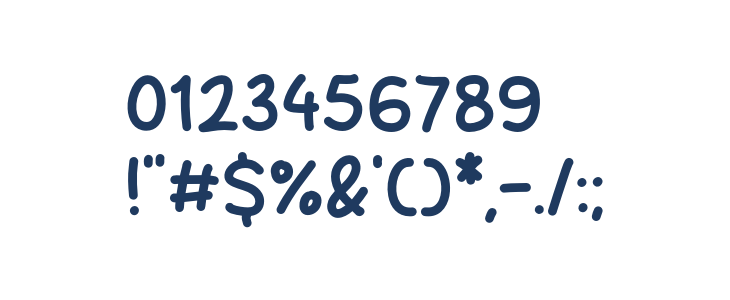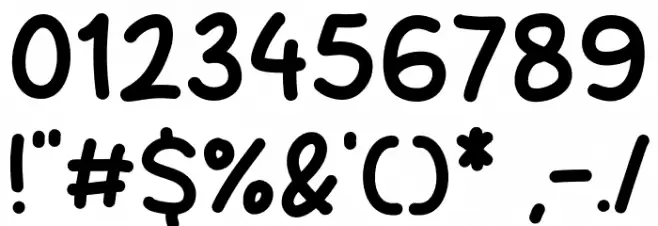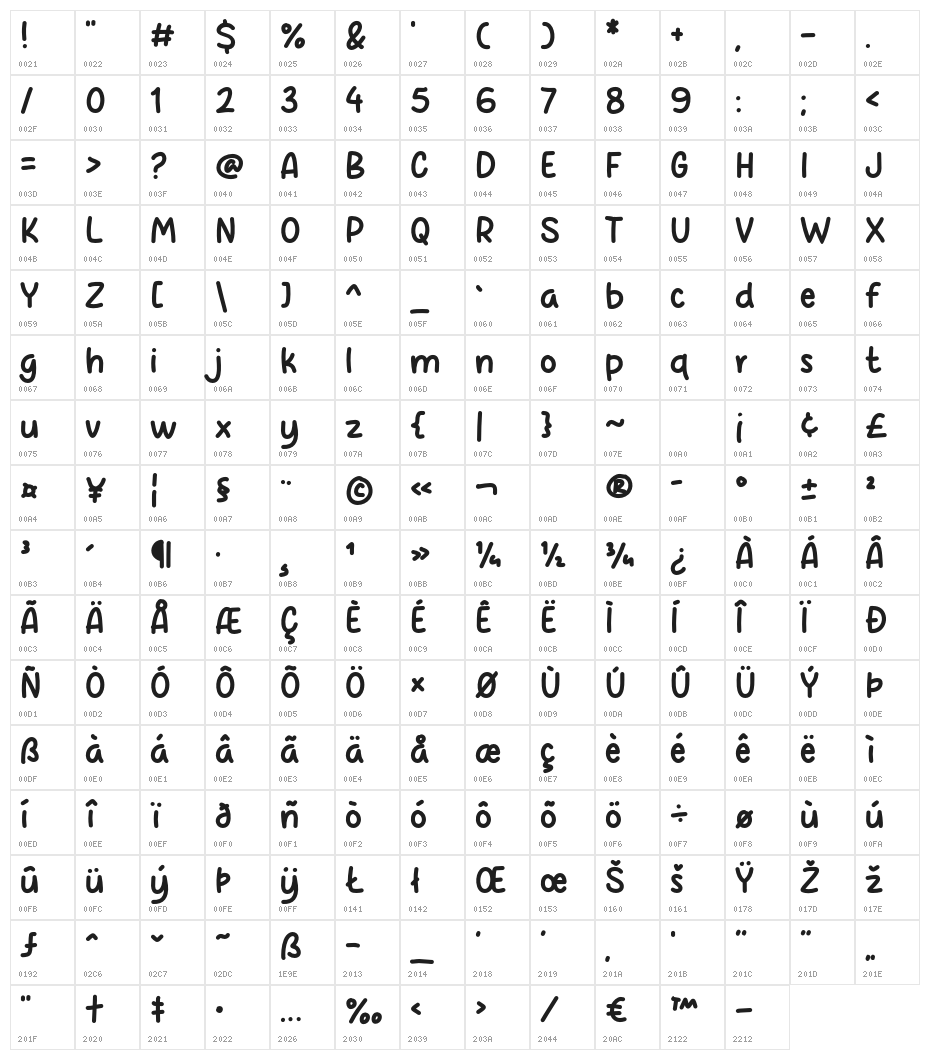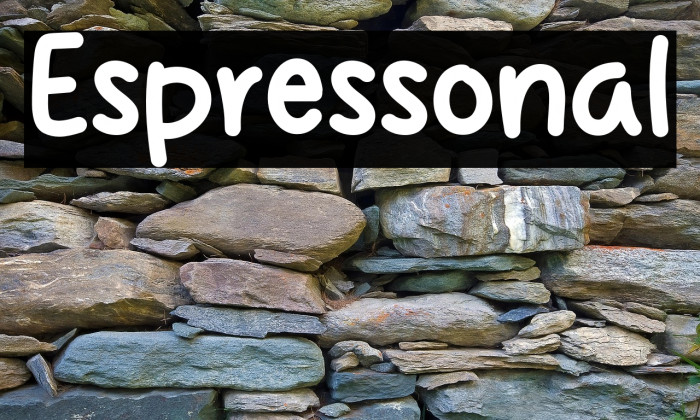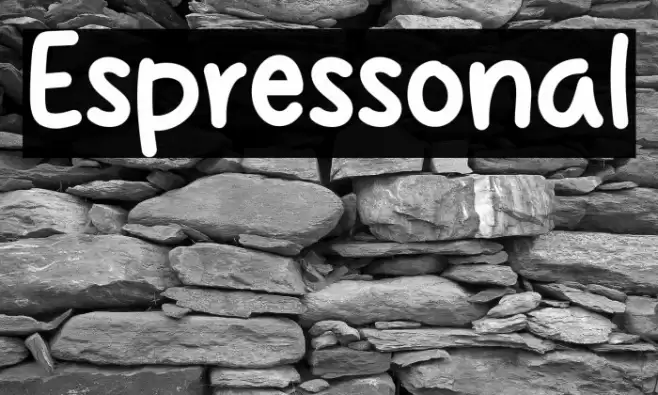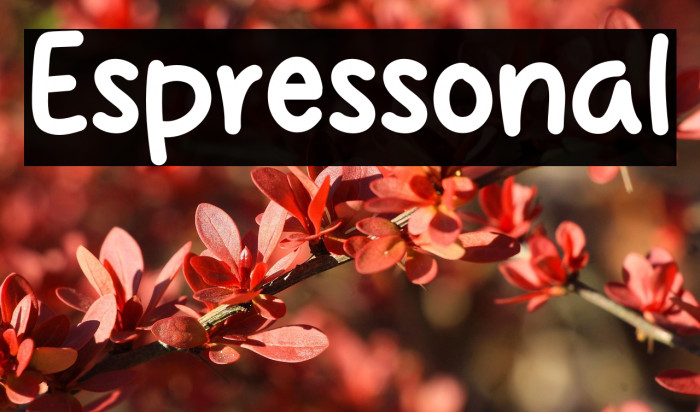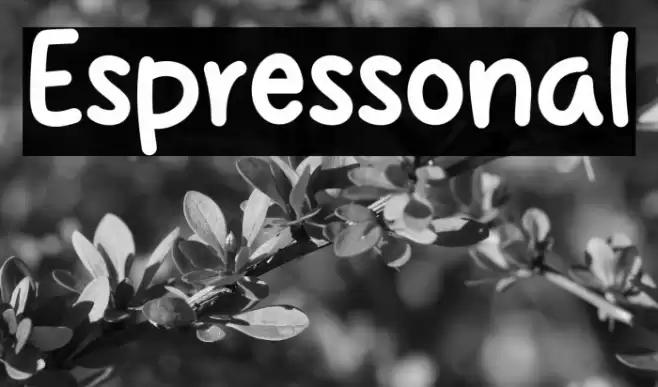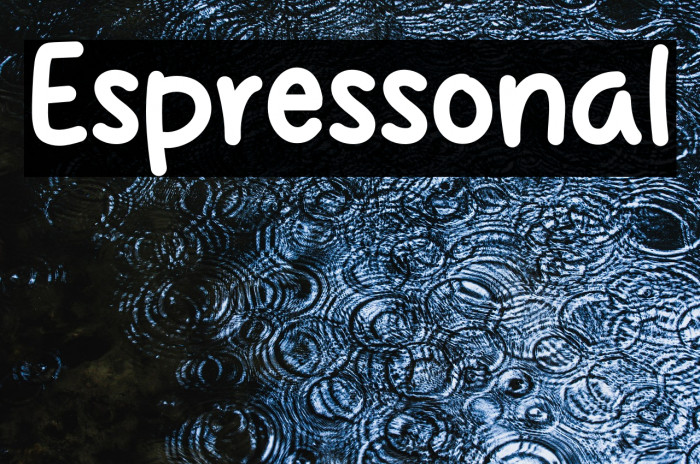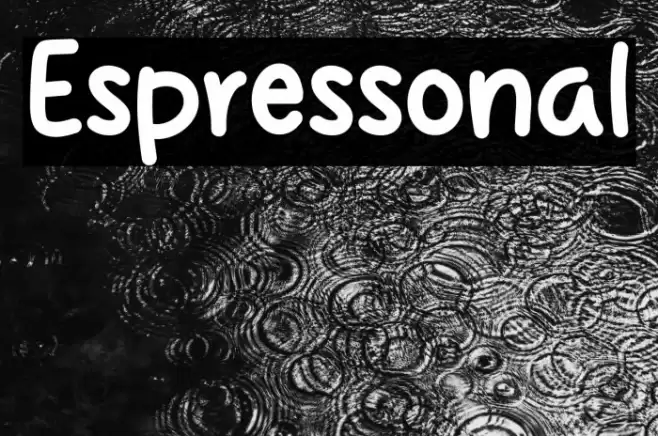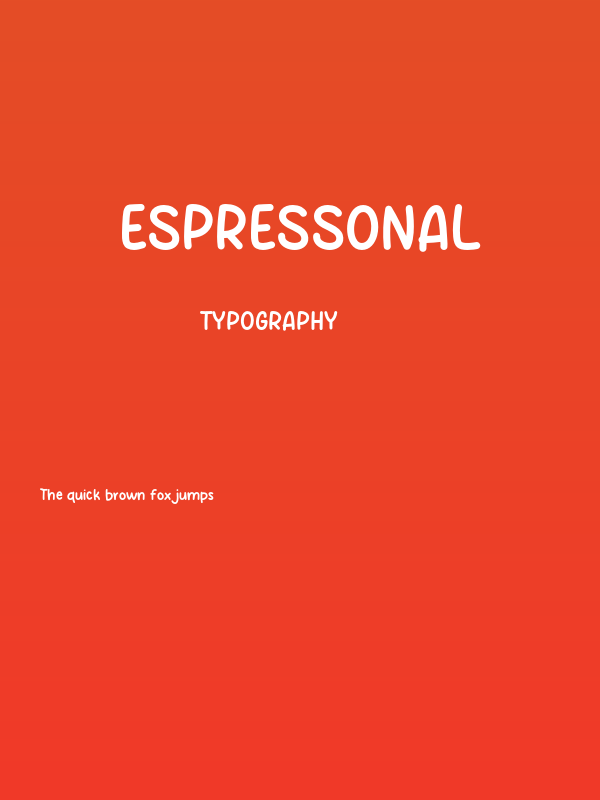
Espressonal Font
Espressonal Description
This playful and rounded font exudes a friendly and approachable vibe. The characters are bold with a consistent stroke width, giving it a uniform appearance. The letters have a slightly informal and handwritten feel, making it perfect for casual and fun projects. The rounded edges and smooth curves contribute to its warm and inviting look. The font maintains good readability across both uppercase and lowercase letters, as well as numbers and special characters. Its whimsical style is ideal for projects that require a touch of personality and charm.